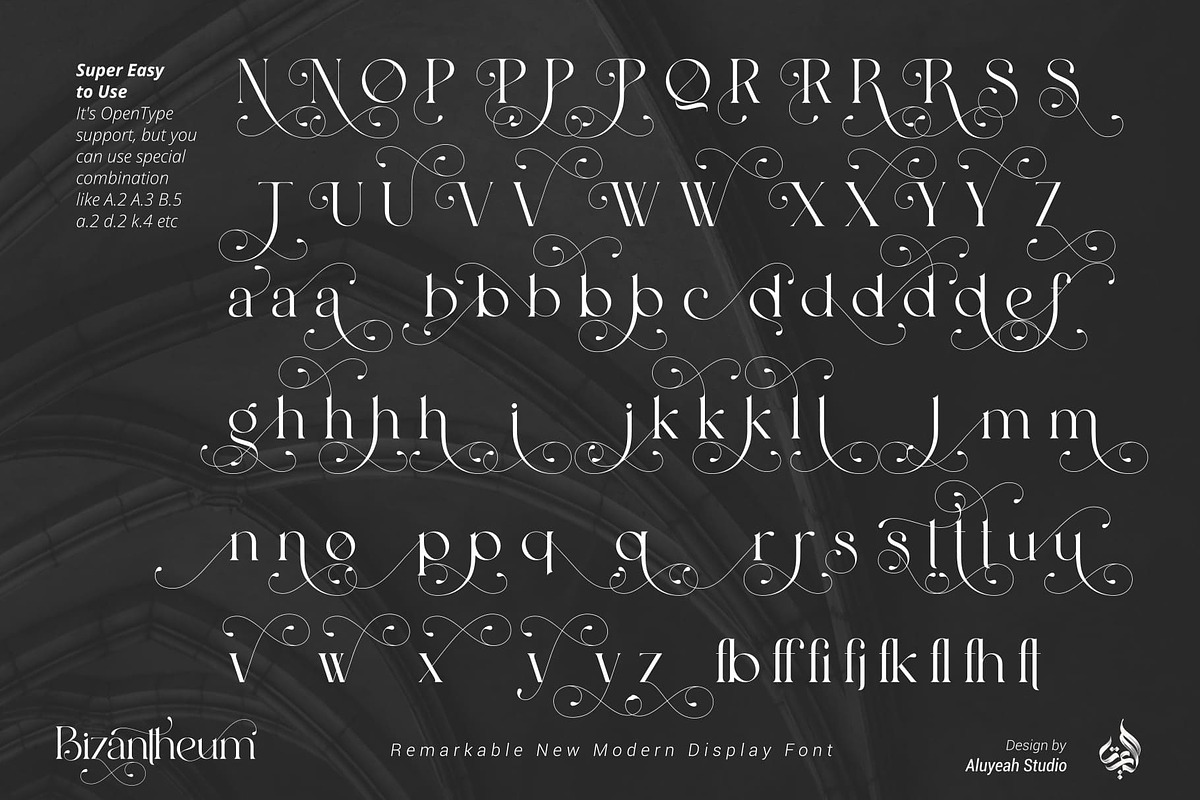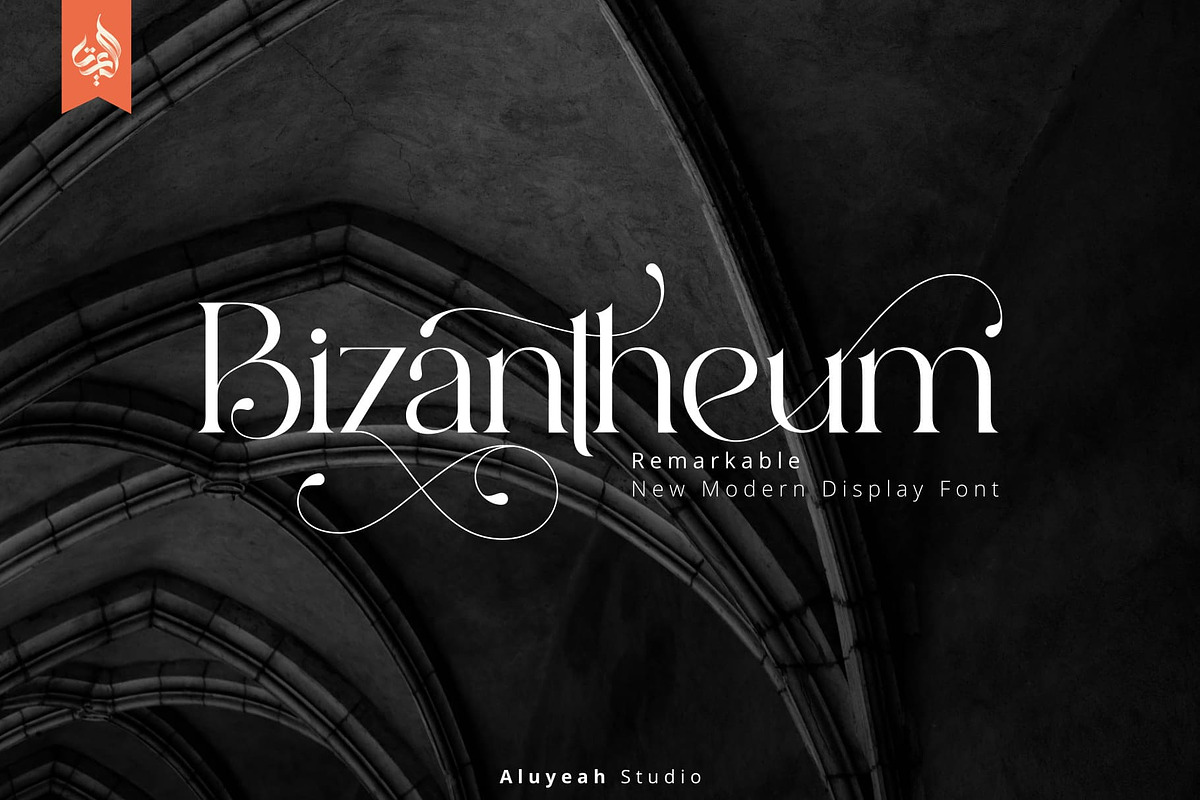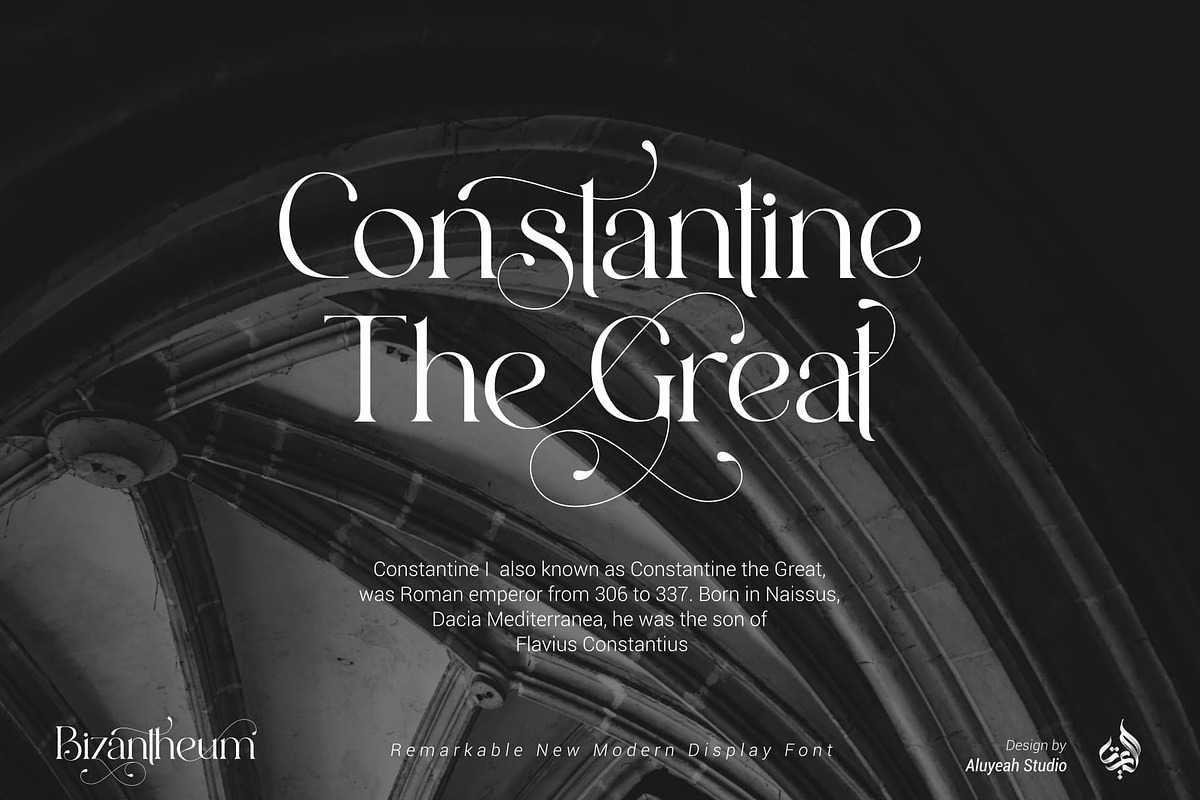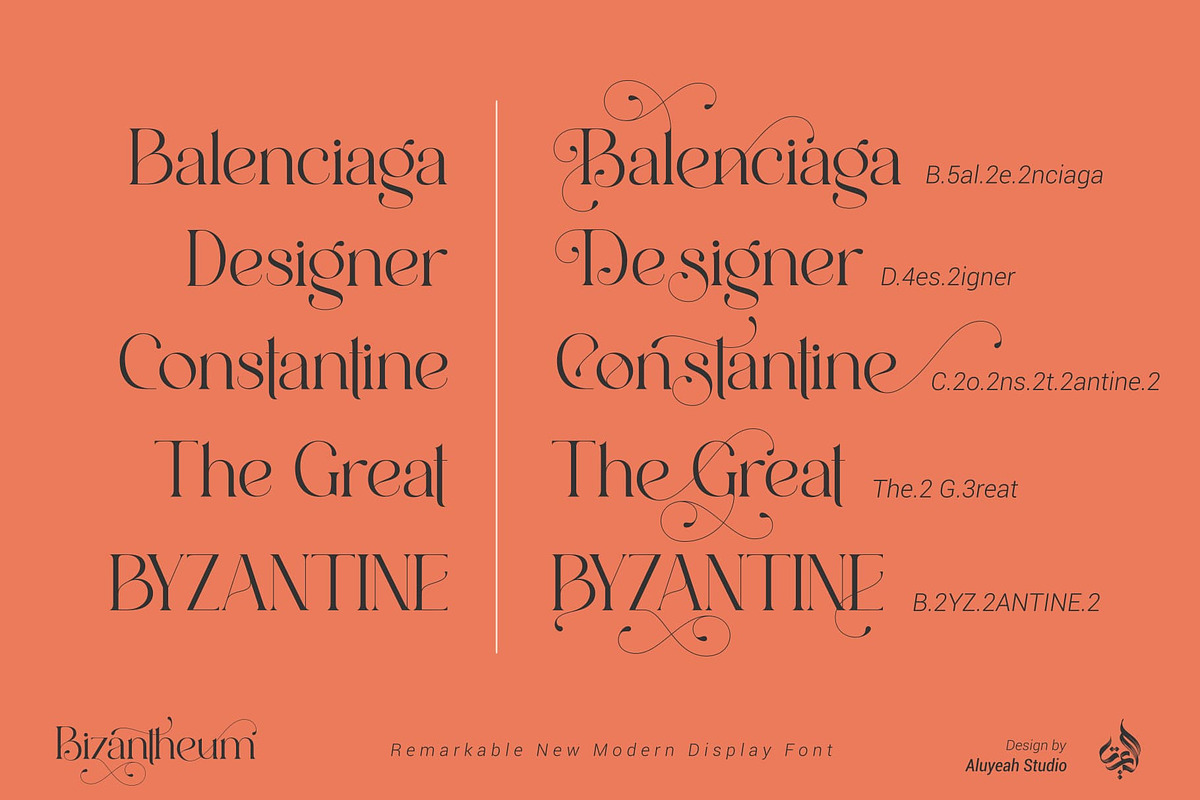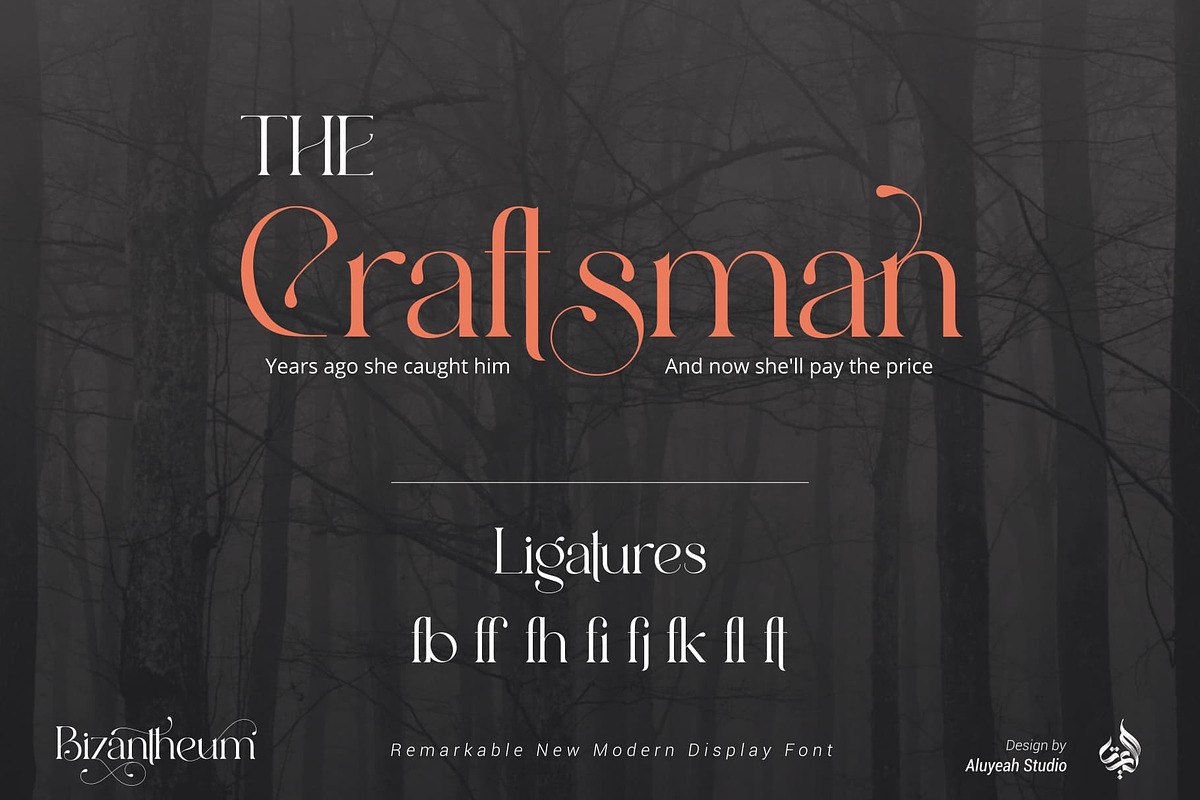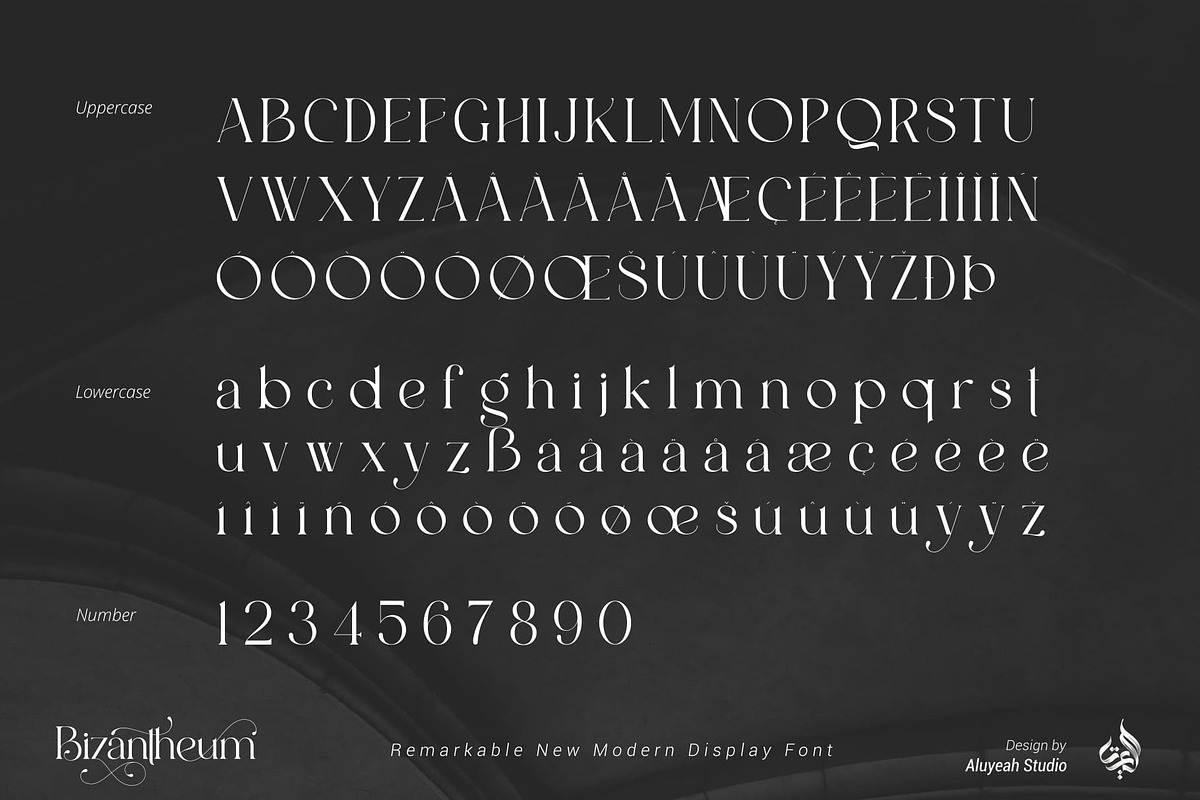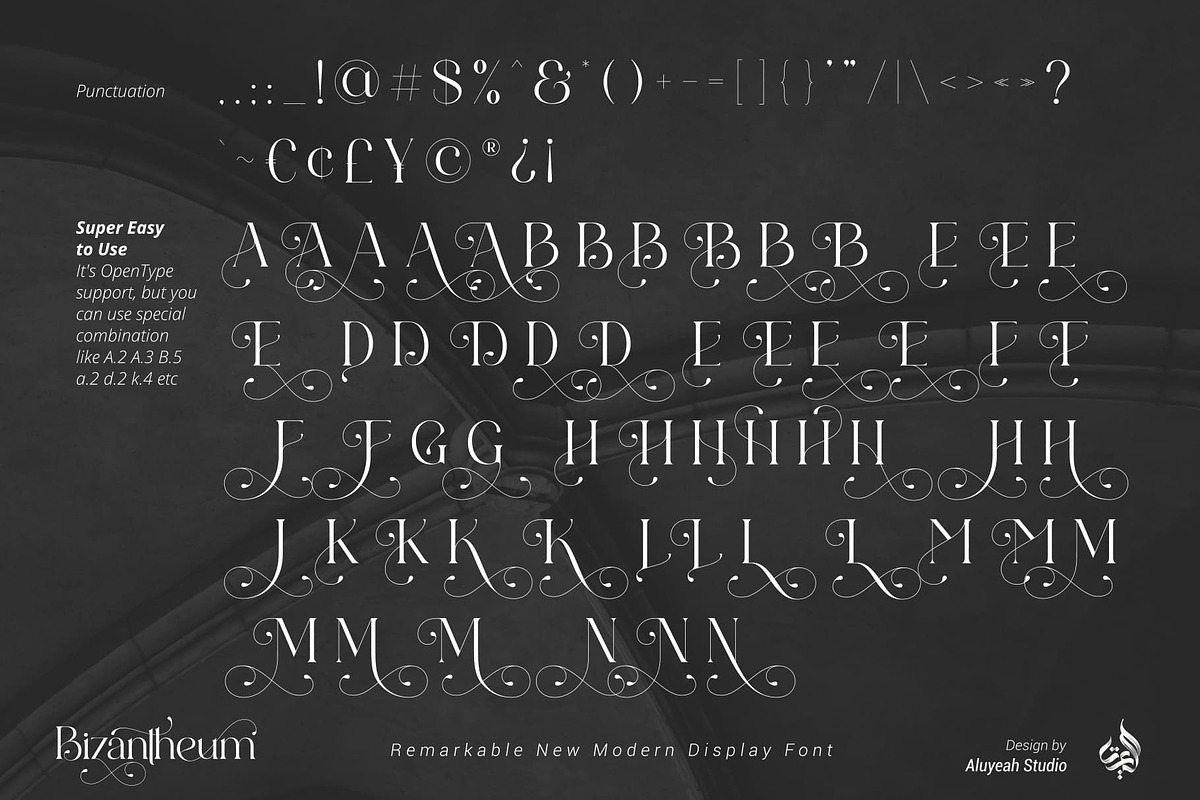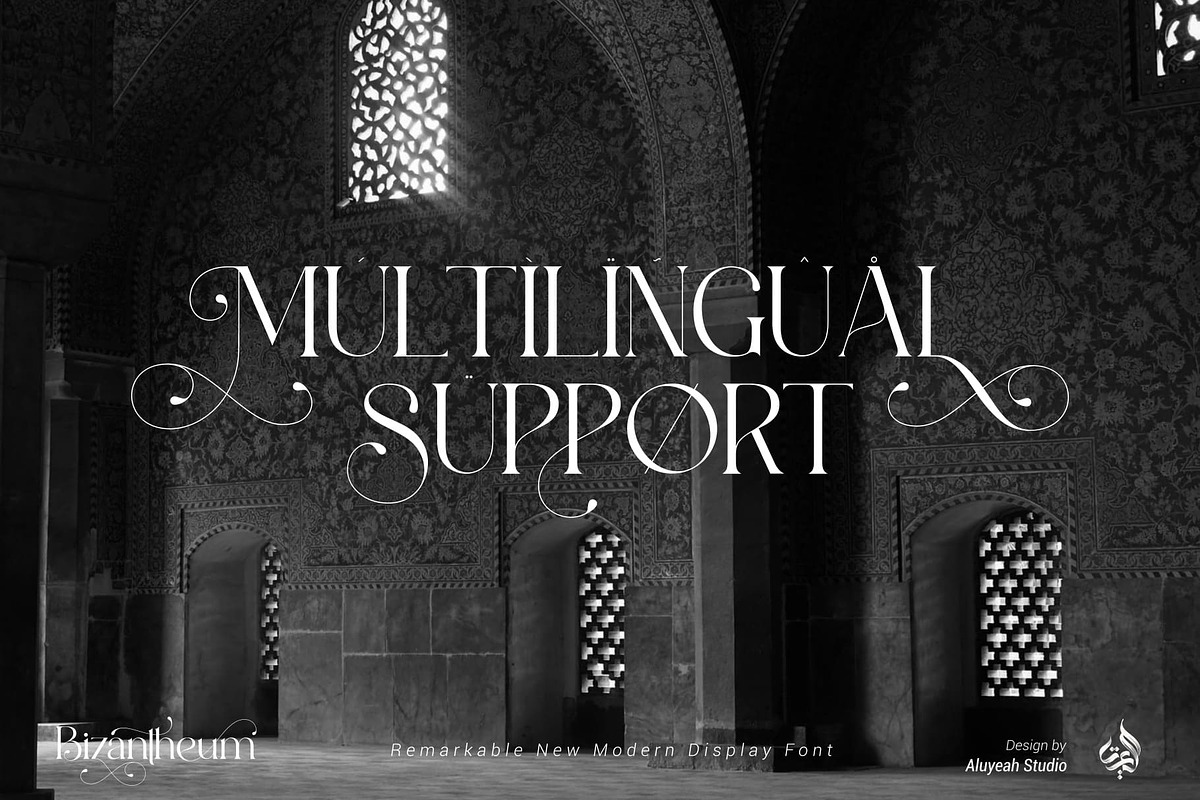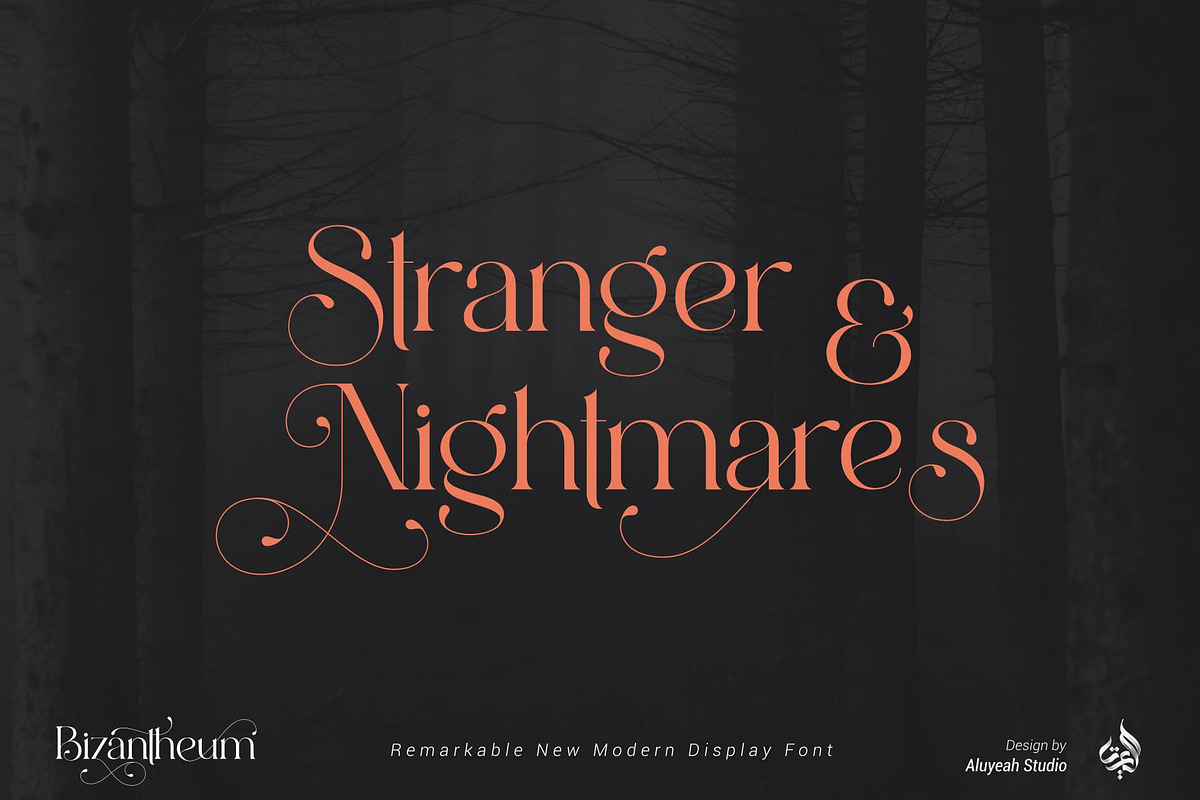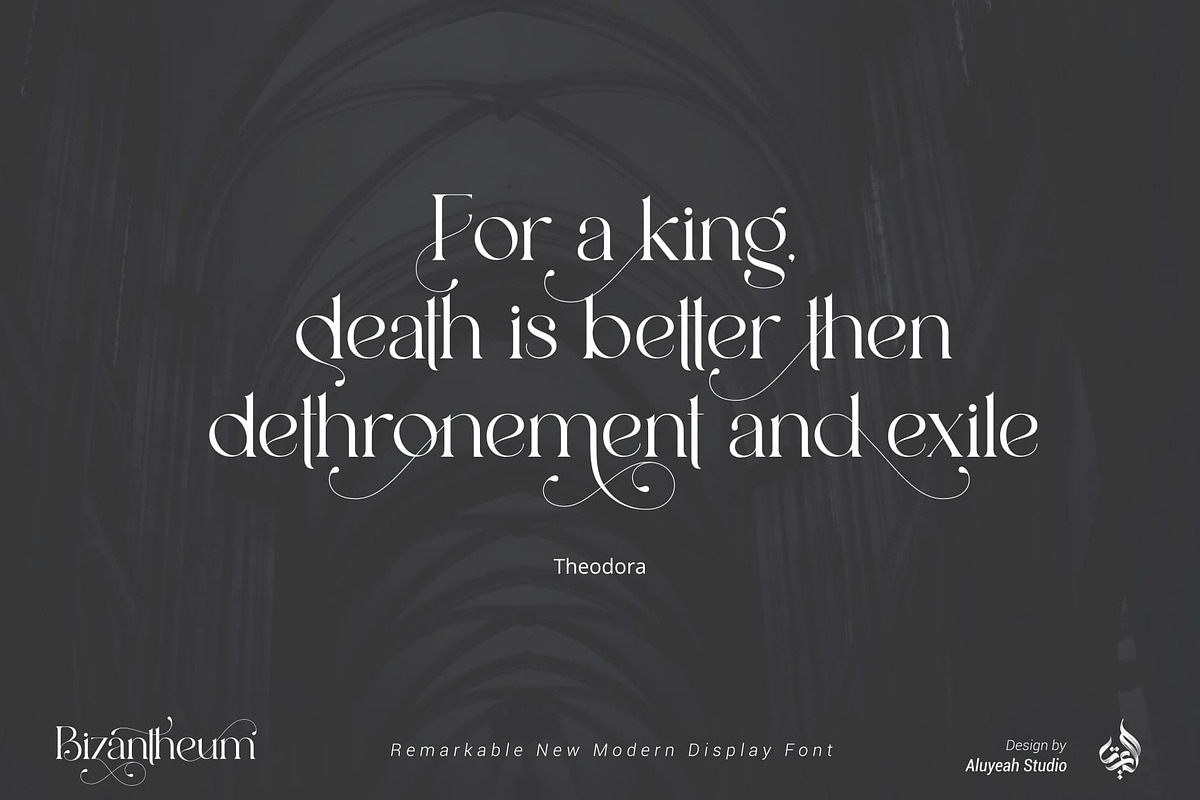
Bizantheum
Bizantheum, remarkable new modern display font. Inspired by the majesty and mystique of the Byzantine era buildings. Coming with 130+ stunning and super easy to use alternates.
Very suitable for magazine, headline, website, ads, product package and all type of design project you have.
- OpenType support
- Multilingual support (15 languages)
- Super Easy to Use alternates - It's OpenType support but you can easly call alternates character using special combination like A.2 R.3 h.5 etc so you don't need special software.
To get results like the preview just type B.3iz.2ant.2he.2um